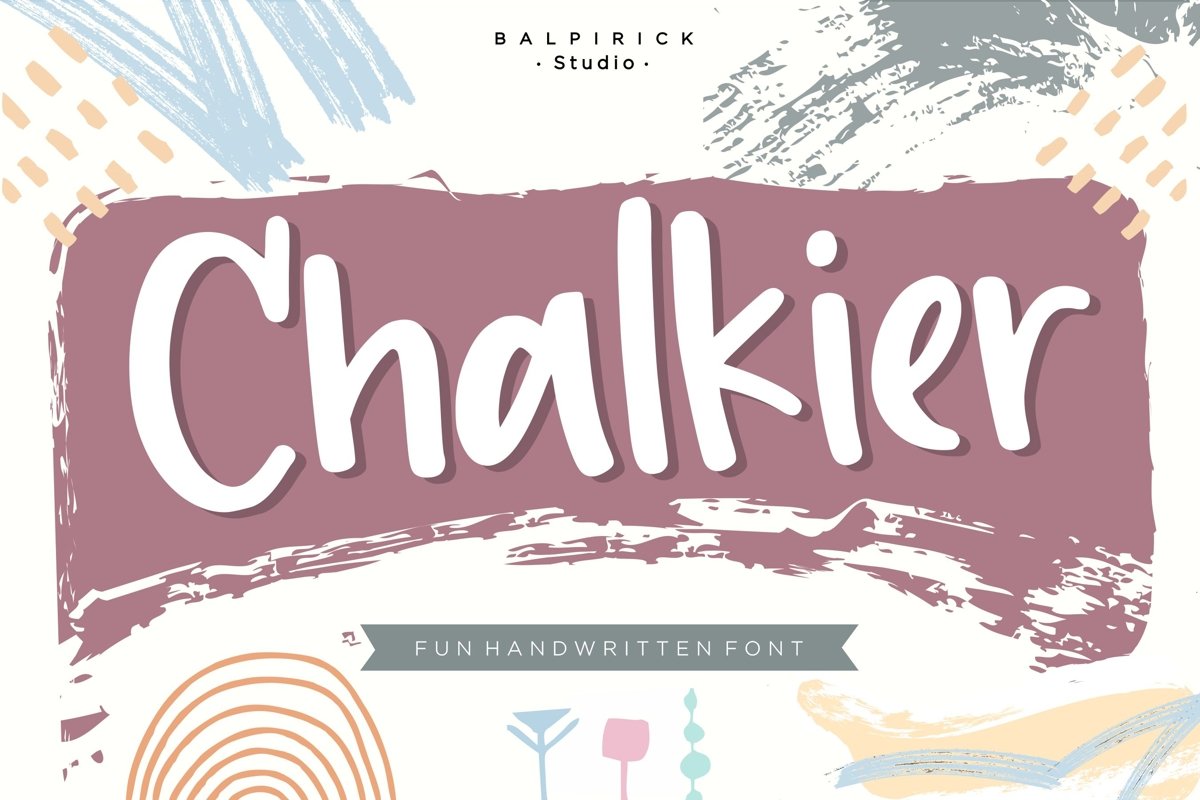
Proudly Present, Chalkier Font.
Chalkier is a fun & quirky handwritten font.
Chalkier is perfect for product packaging, branding project, megazine, social media, wedding, or just used to express words above the background.